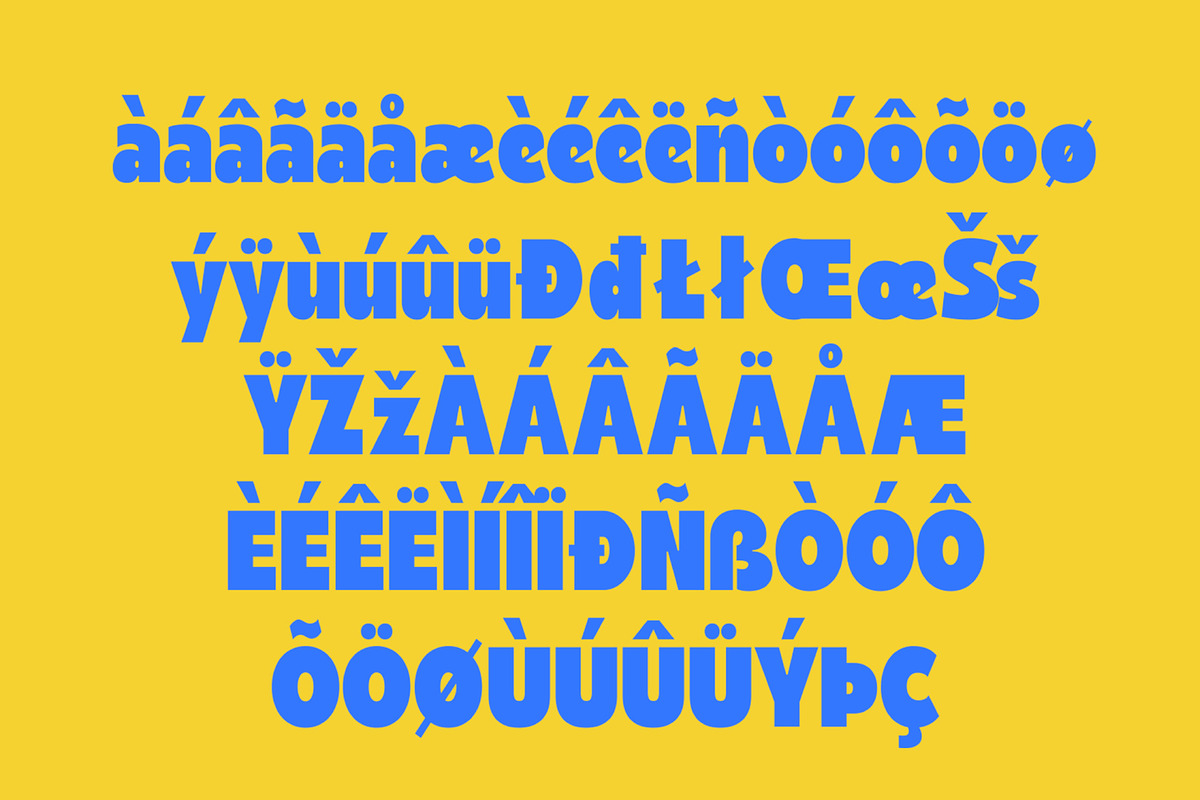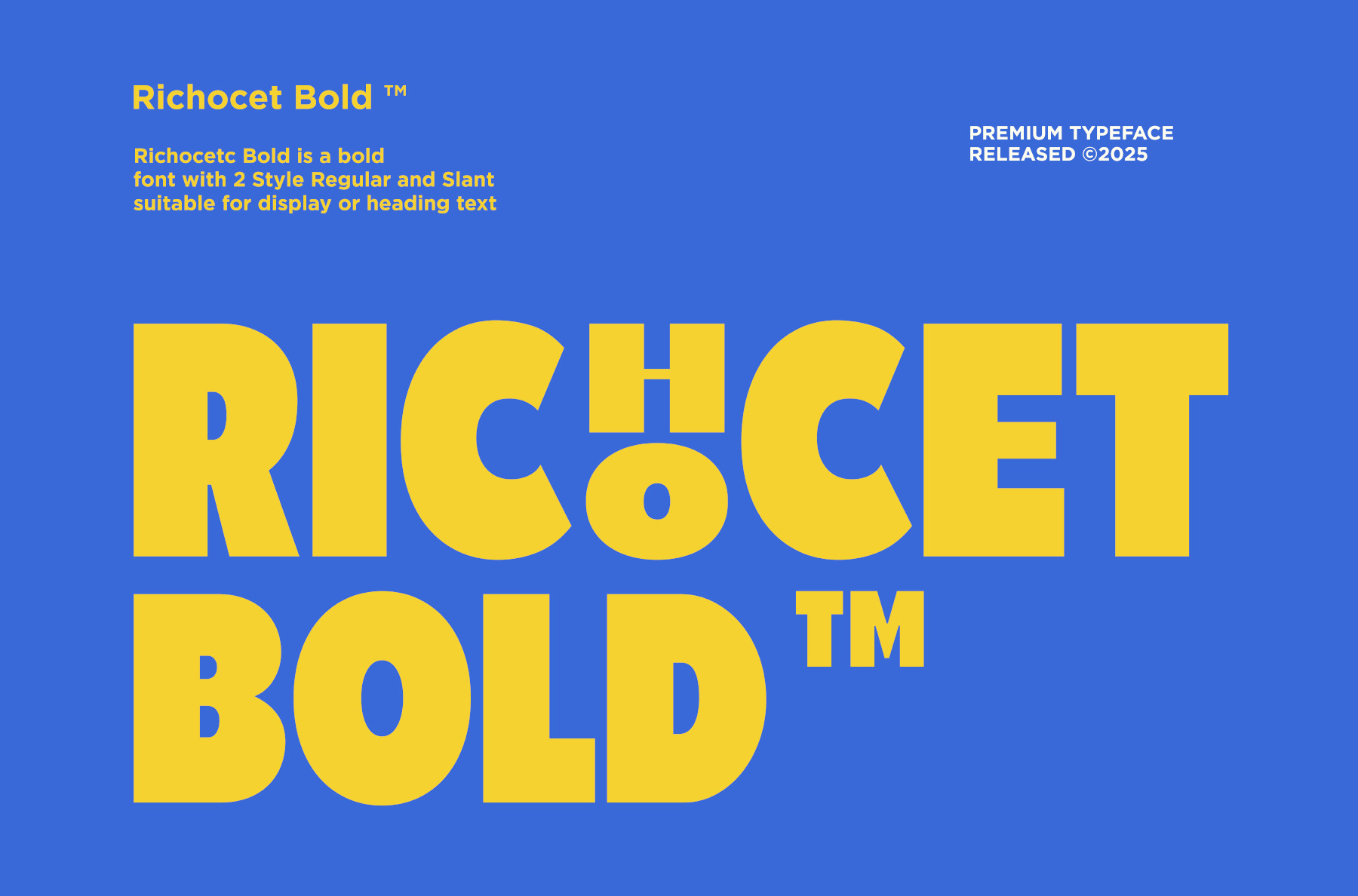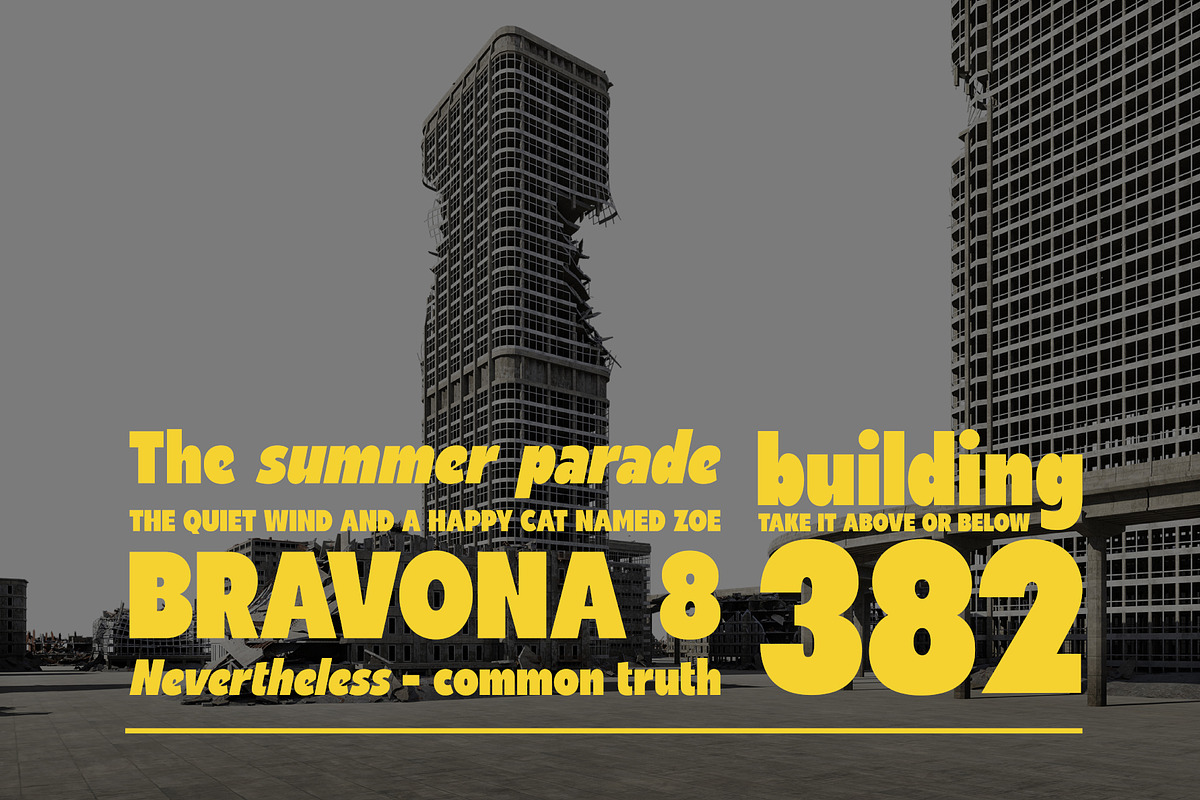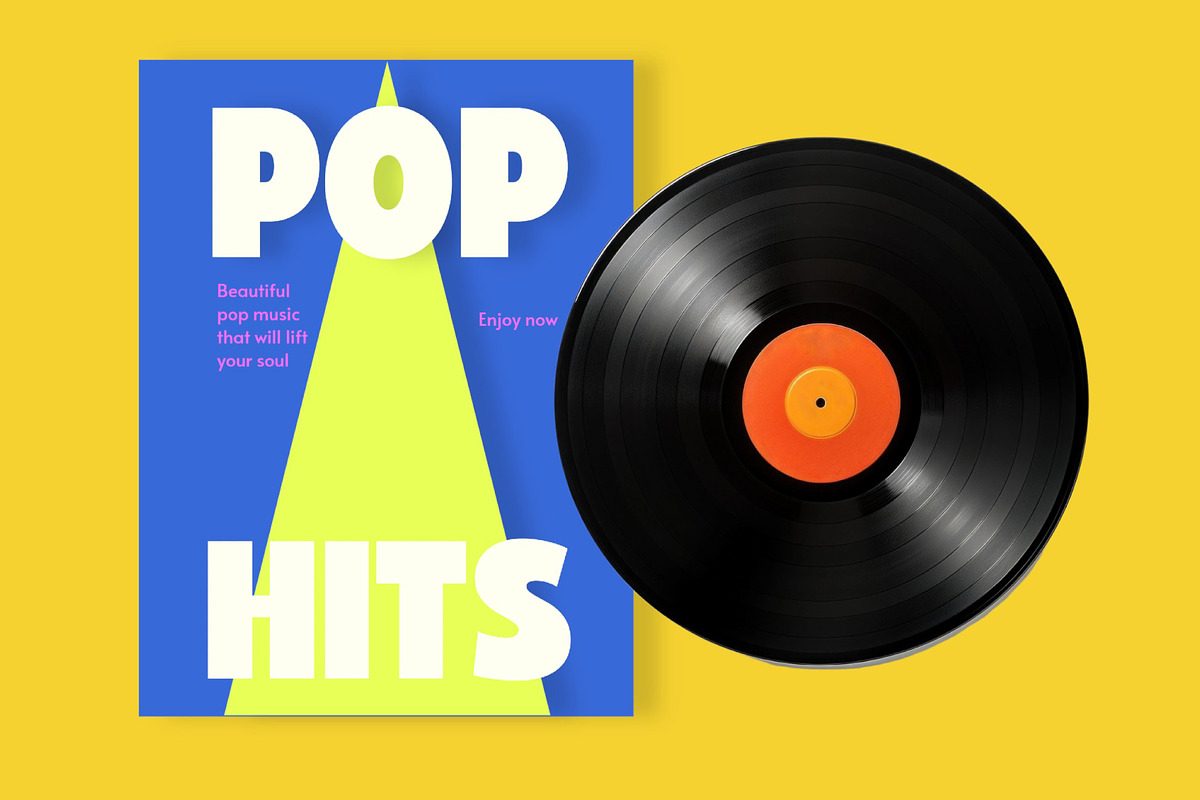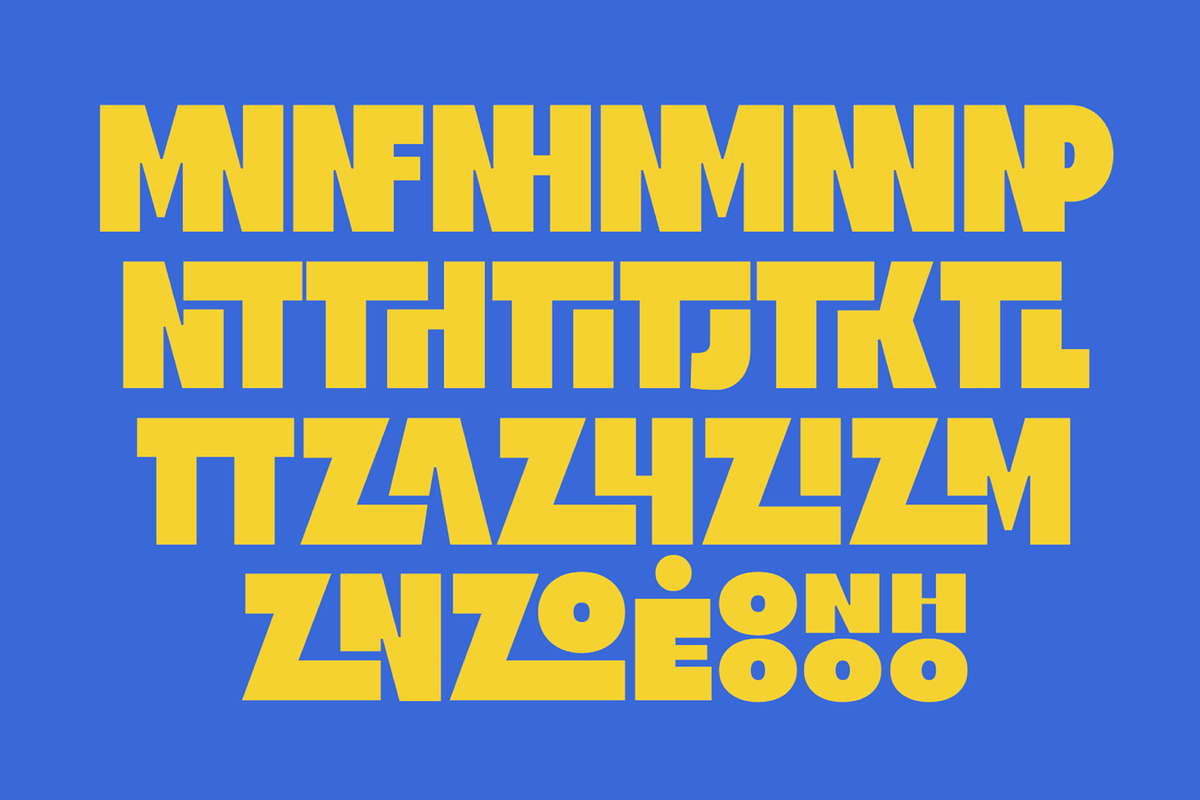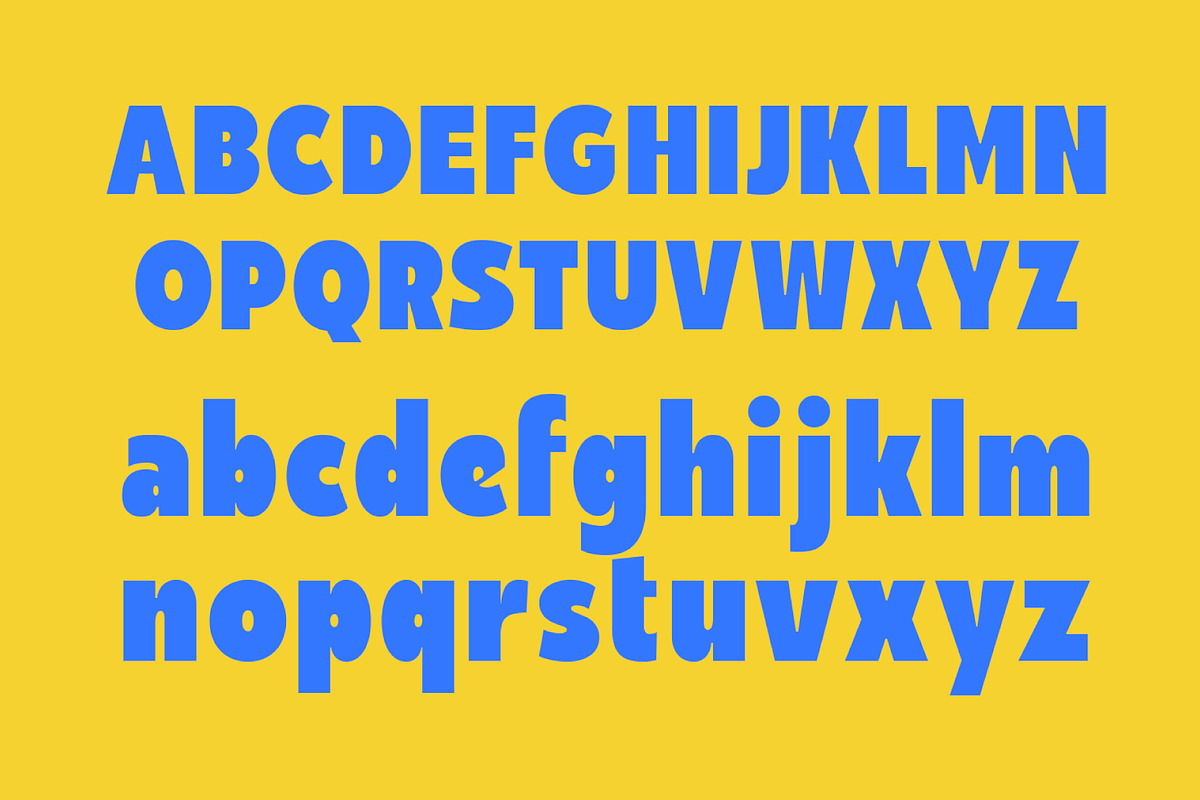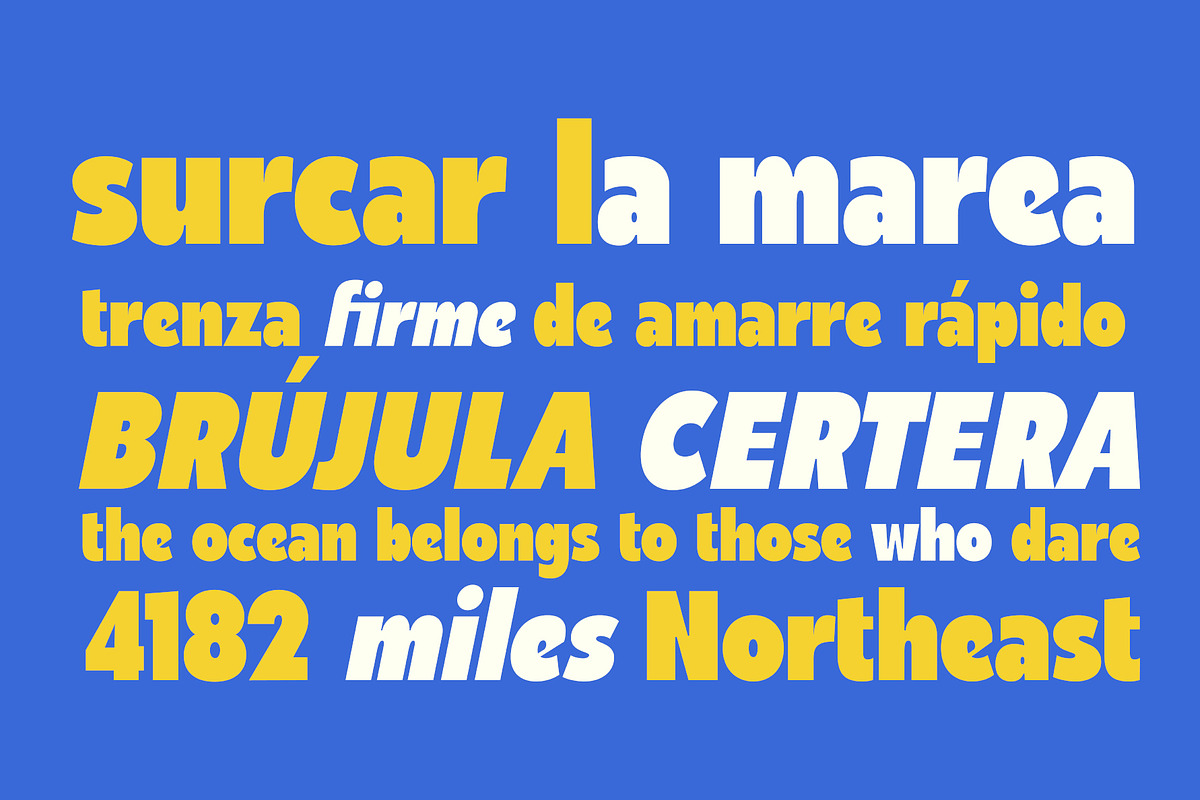
Richocet Bold Font
Richocet Bold: Command Attention with Every Letter! Tired of headlines that whisper? Richocet Bold is a massive, high-impact display typeface designed to make your message impossible to ignore.
Inspired by the chunky aesthetics of retro-futurism and the Y2K design revival, Richocet Bold delivers a maximum-weight punch with a unique twist. Its solid, heavyweight structure is subtly disrupted by distinctive geometric in-line cutouts—like small, precise ricochets—giving it a dynamic, almost tech-focused energy.
Ultra-Bold Weight: Ideal for powerful headlines, branding, and striking logotypes.
2 Essential Styles: Includes Regular and Slant (or Italic) for versatile design options.
High Visual Impact: Perfect for posters, album covers, merchandise, and attention-grabbing social media graphics.
Unique Aesthetic: Blends heavy, blocky forms with minimalist, geometric detail for a signature look.